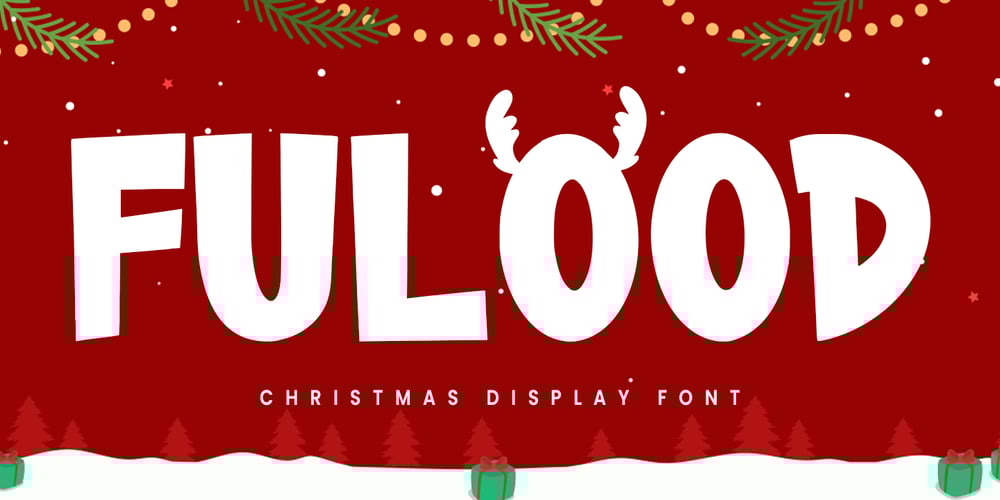
MC Fulood Font Family was designed by Gilang Maulana and published by Maulana Creative. MC Fulood contains 1 styles and family package options. Fulood is a handwritten sans christmas display font. With simple stroke, fun character with a awesome alternates. To give you an extra creative work Fulood font support multilingual more than 100+ language. This font is good for logo design, Social media, Movie Titles, Books Titles, a short text even a long text letter and good for your secondary text font with sans or serif. Make a stunning work with Fulood font.Cheers, Maulana Creative